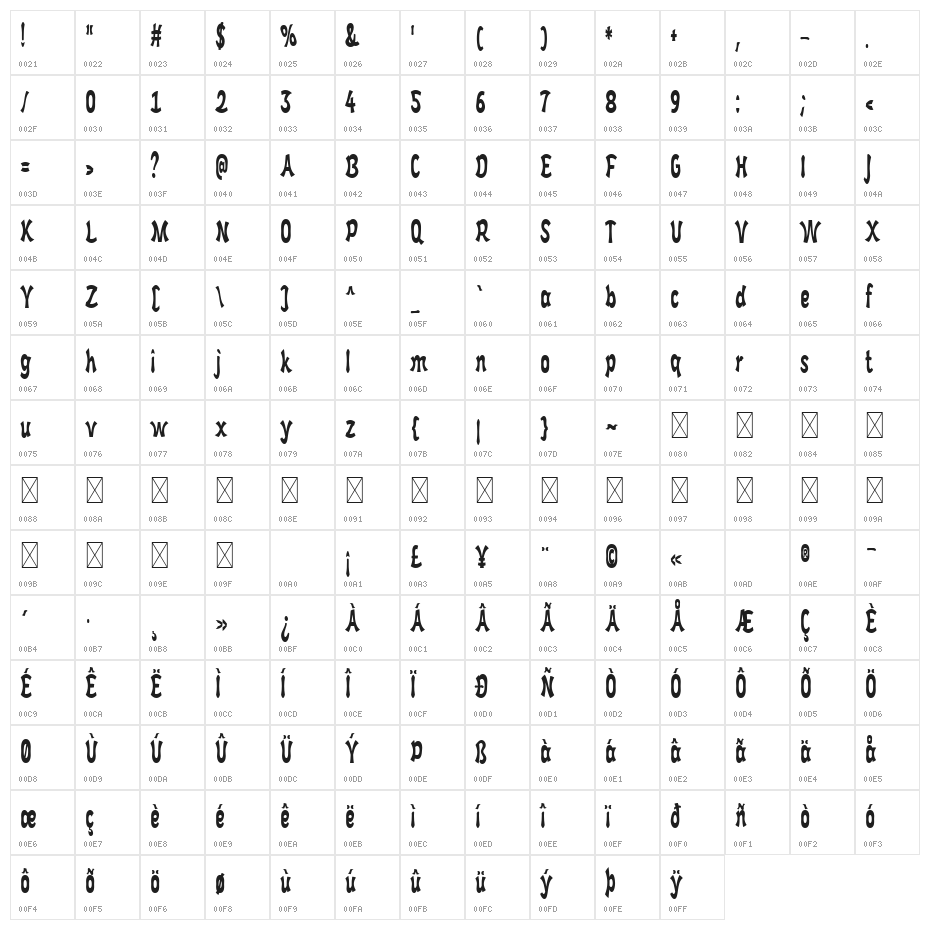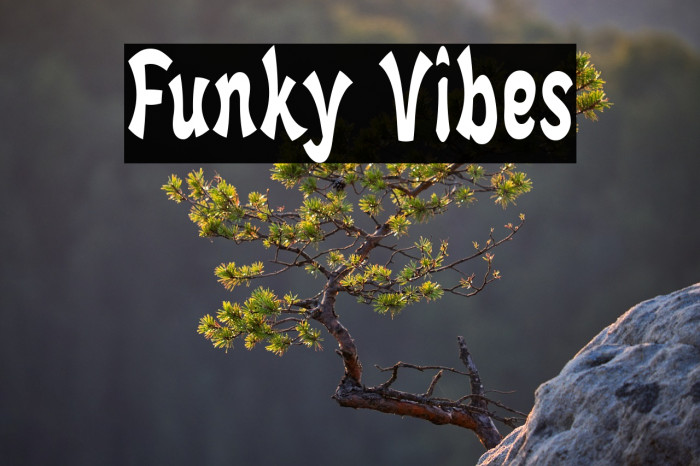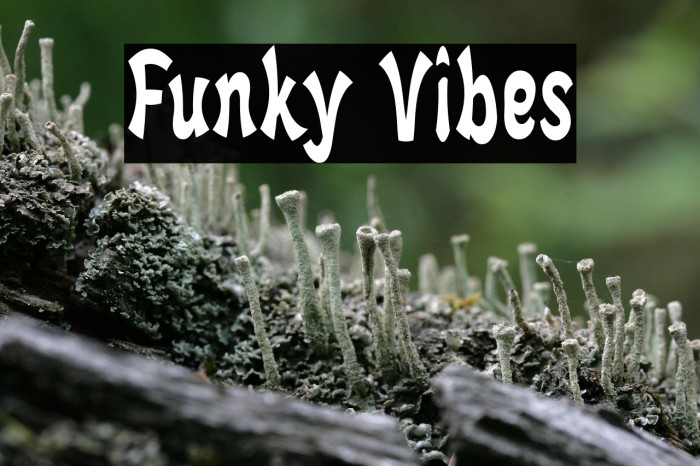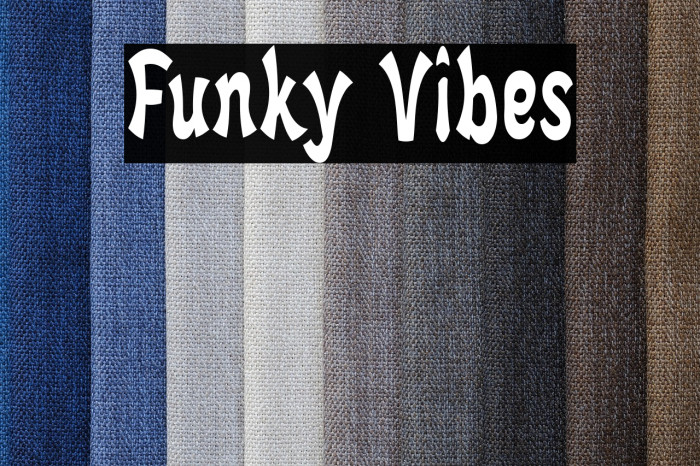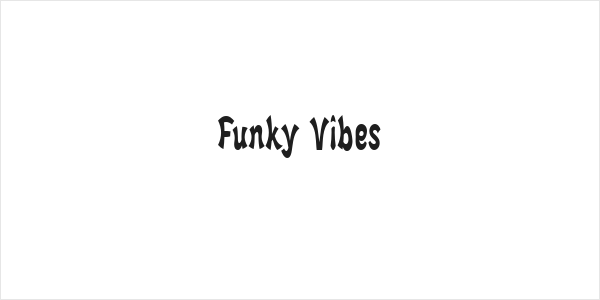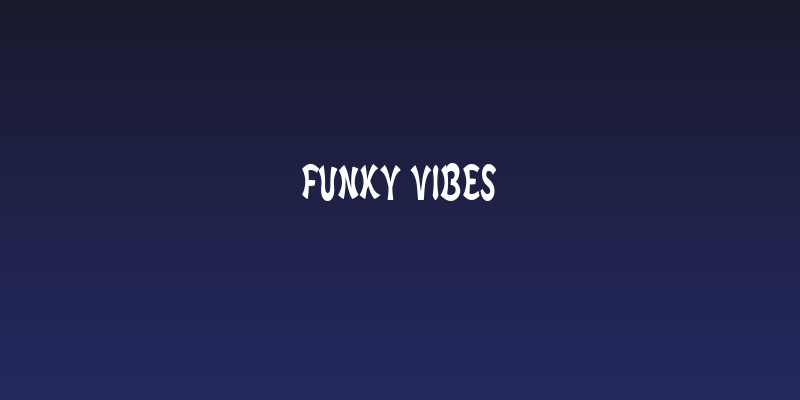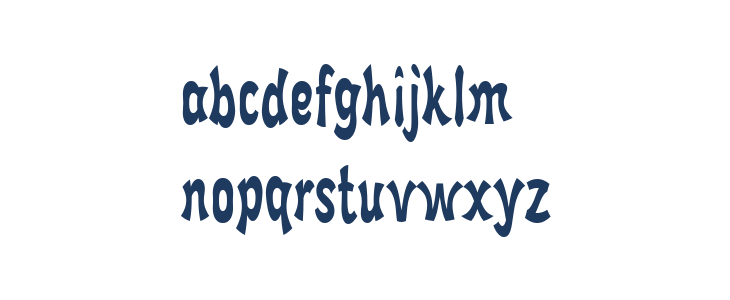
Funky Vibes Font
Funky Vibes Description
This font exudes a playful and dynamic energy, characterized by its bold and wavy letterforms. Each character has a unique, hand-drawn appearance, giving it a lively and whimsical feel. The strokes are thick and consistent, with a slight irregularity that adds to its charm. The uppercase letters are particularly striking, with exaggerated curves and angles that create a sense of movement. The lowercase letters maintain the same energetic style, making the font cohesive and versatile. Numbers and special characters are equally expressive, ensuring that the font can be used in a variety of contexts without losing its distinctive personality.
| Proposed Projects | Ideal for children's books, playful branding, event posters, and creative projects that require a fun and energetic typeface. |